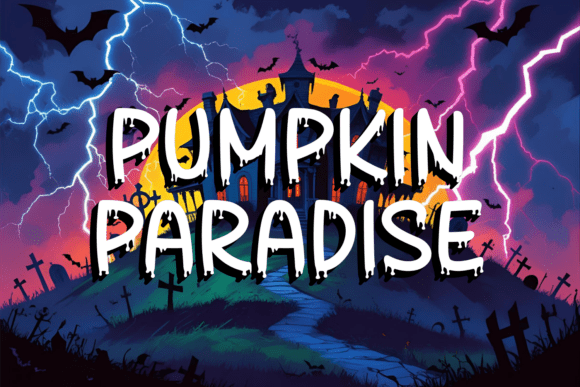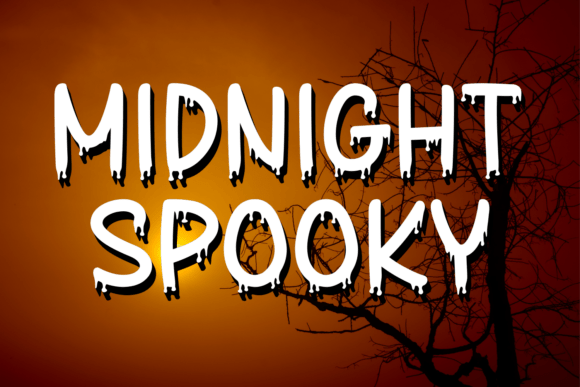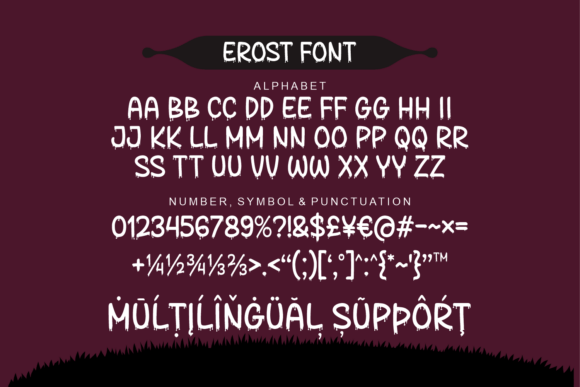
Getting into the Halloween Spirit with Erost Font
As the spooky season approaches, designers are scrambling to create the perfect Halloween-themed visuals. For many, this means pouring over font collections, searching for the perfect combination of creepy and captivating. And then, there’s the Erost Font – a hauntingly beautiful typeface that’s sure to send shivers down your spine.
Designed to evoke the eerie atmosphere of Halloween, Erost Font is the perfect choice for posters, party invitations, decorations, and other promotional materials. Its bold letterforms are easy to read from a distance, making it an ideal choice for high-visibility designs. But what really sets Erost apart is its unique drip effect, giving the impression of blood or a viscous liquid dripping from each letter. This adds a level of depth and realism to your designs, making them truly unforgettable.
Erost Font Key Features
- Font Family: Erost Font is a modern sans-serif font family designed for digital use.
- Character Count: Includes 250 characters, including Latin characters, punctuation, and digits.
- Size and Resolution: Designed for use at medium to large font sizes (10-24 points) and resolutions up to 300 DPI.
- Unique Characteristics: Erost Font features a unique blend of geometric and organic shapes, with a focus on legibility and readability.
Erost Font Review
I recently had the chance to work with the Erost font, and I must say, it’s a unique and interesting choice. Here are some of its strengths and weaknesses.
- Handwritten feel: The Erost font has a lovely, handwritten feel to it that makes it perfect for creative and artistic projects.
- Expressive: The font is very expressive, making it ideal for projects that require a lot of personality and character.
- Readability: Despite its unique feel, the Erost font is surprisingly readable, even at smaller font sizes.
- Not suitable for body text: While the Erost font is great for headlines and titles, it’s not the best choice for body text, as it can be a bit overwhelming.
- Lack of consistency: The font’s irregularities can make it difficult to use consistently throughout a project.
The Erost font is a bold and eye-catching choice that’s perfect for projects that need a little extra personality. While it may not be the best choice for every project, it’s definitely worth considering for those that require a bit of flair. With some careful planning and execution, the Erost font can be a real showstopper.
Q: What are the technical specifications of the Erost Font?